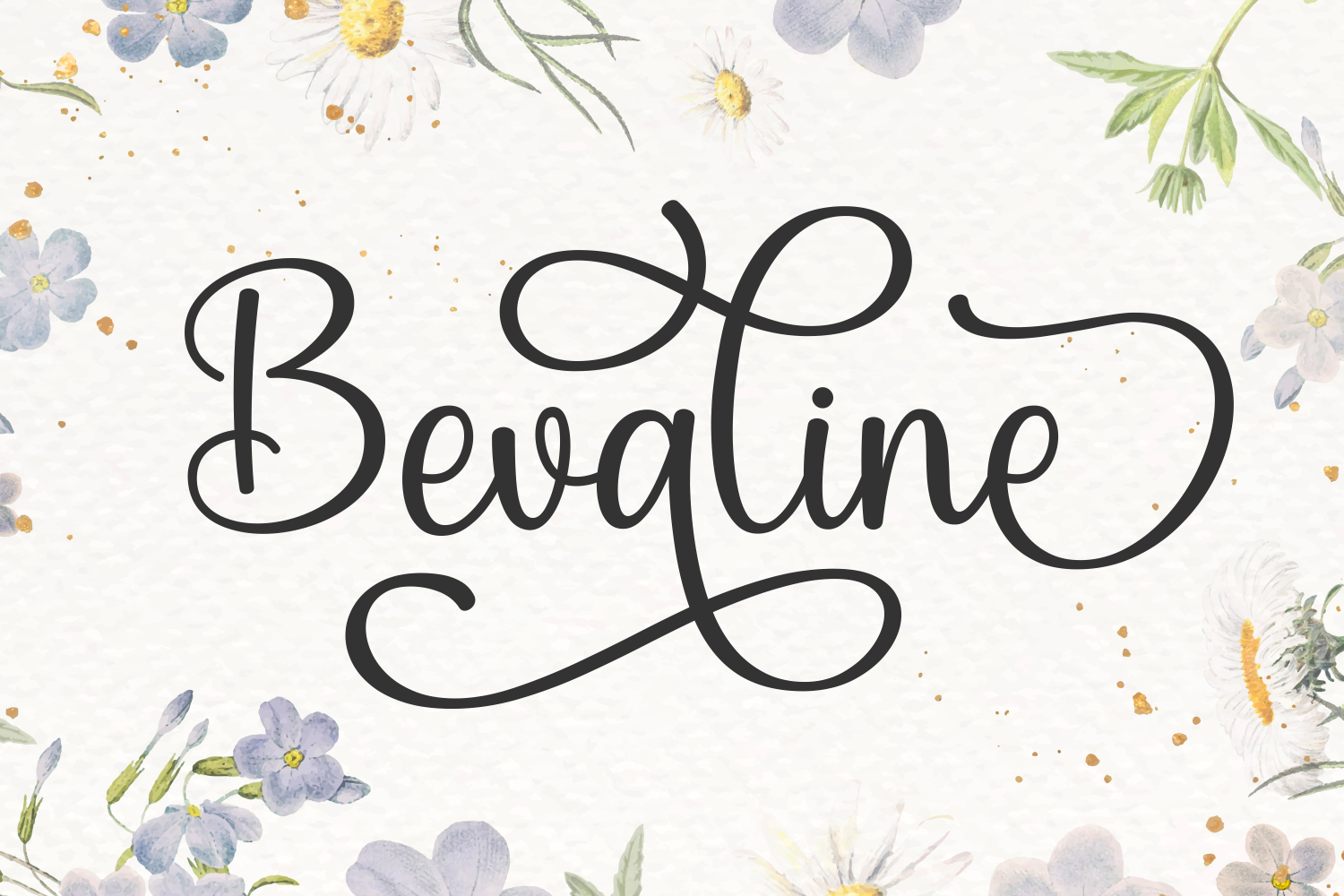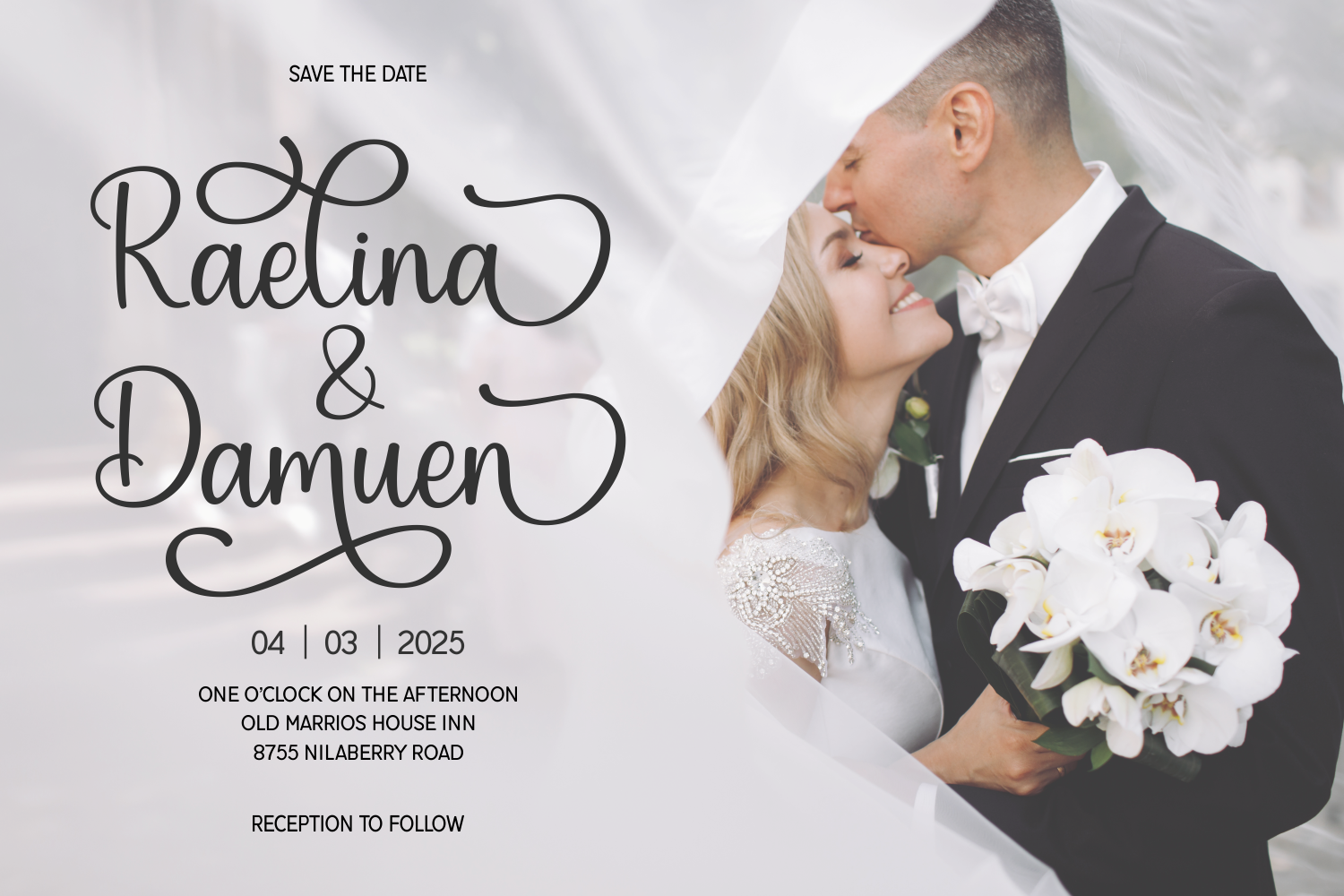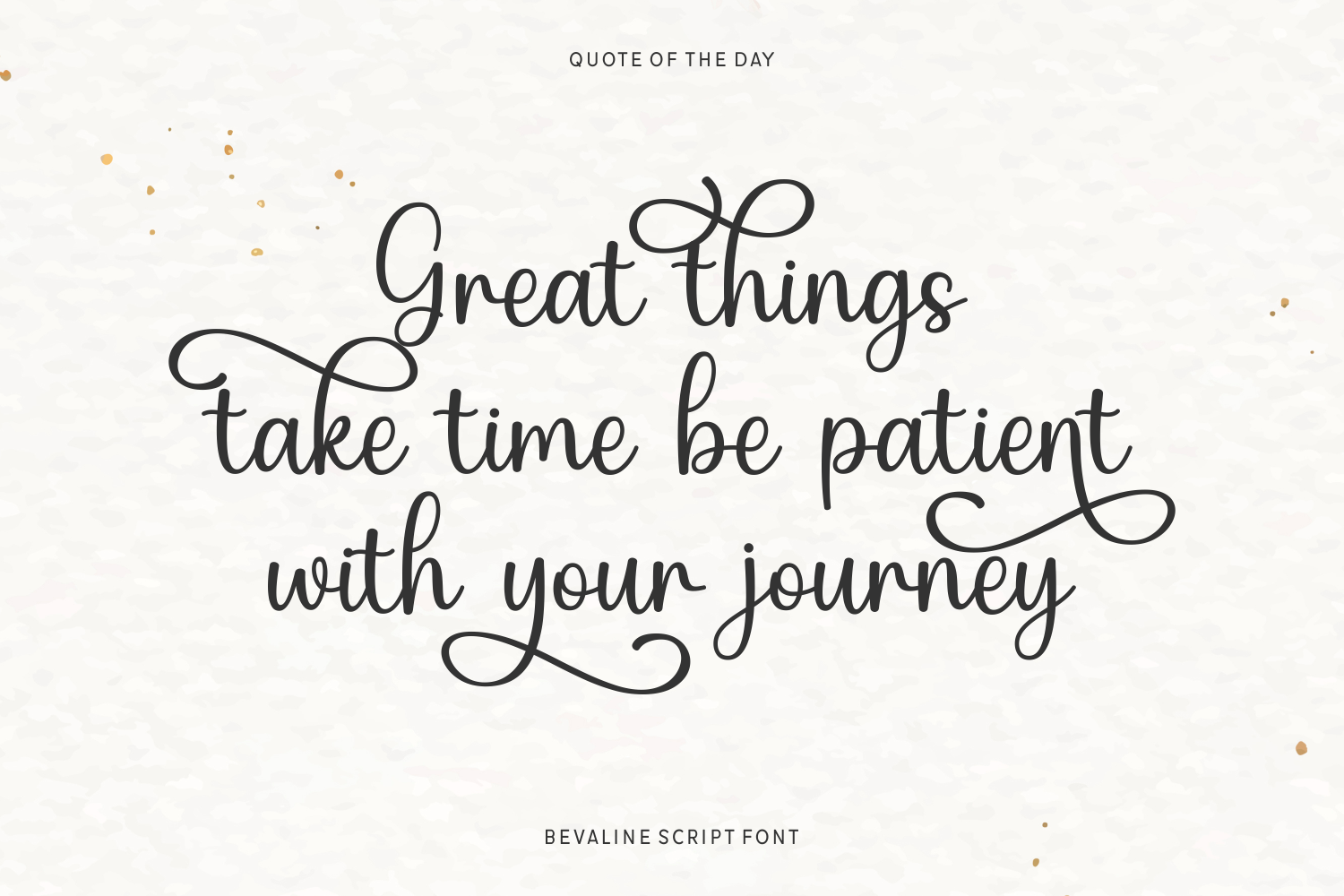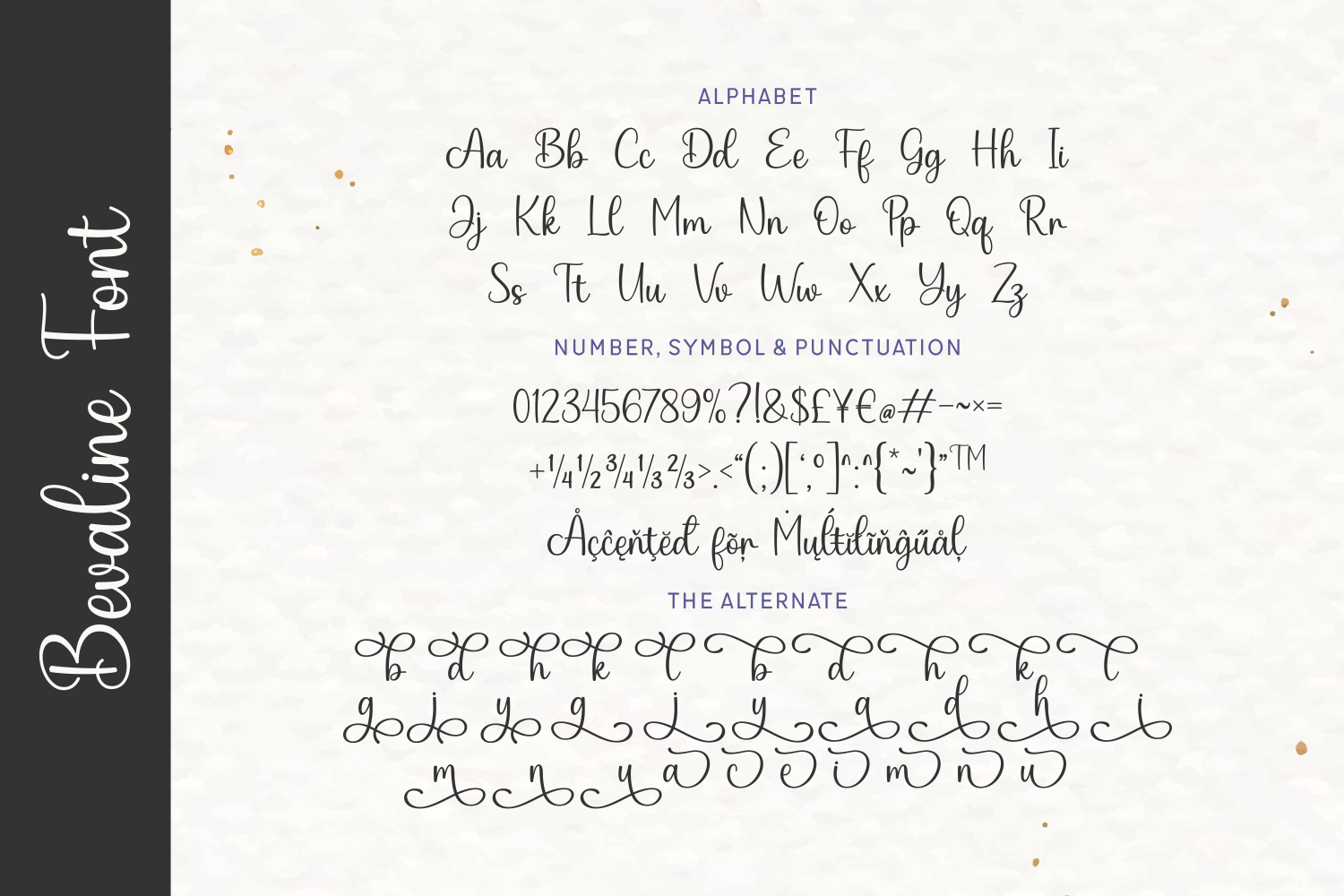
Bevaline is an elegant and feminine script font with graceful curves and luxurious swashes. Perfect for wedding invitations, branding, logos, and romantic stationery, this font adds a sophisticated charm and handwritten finesse to any project.